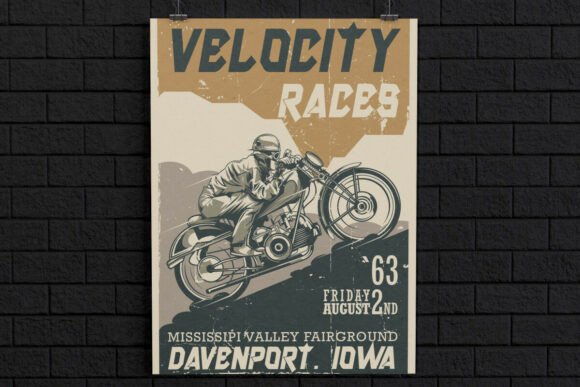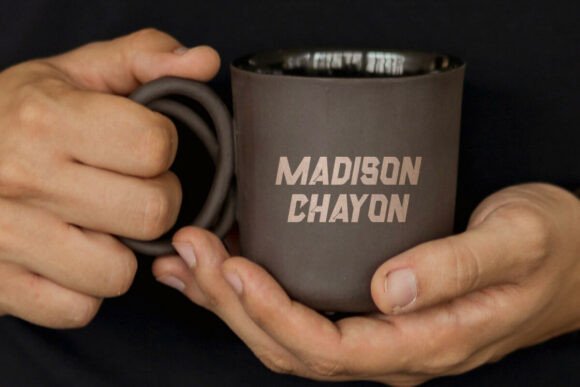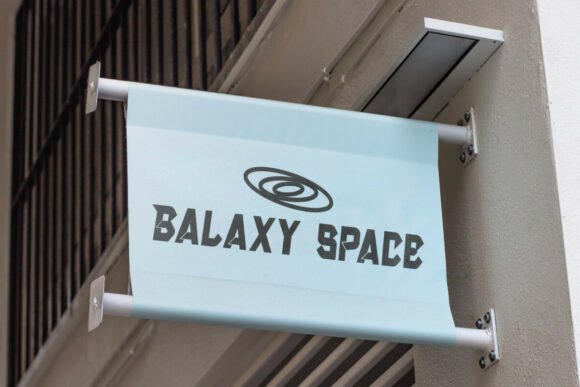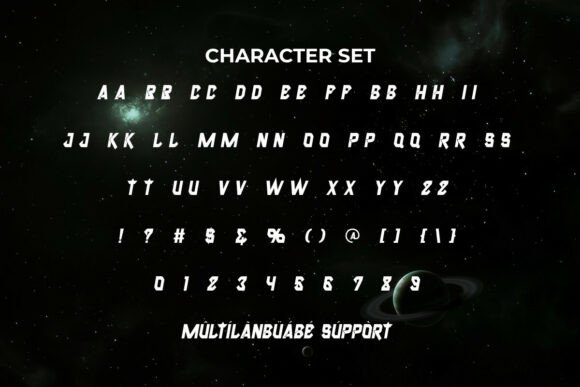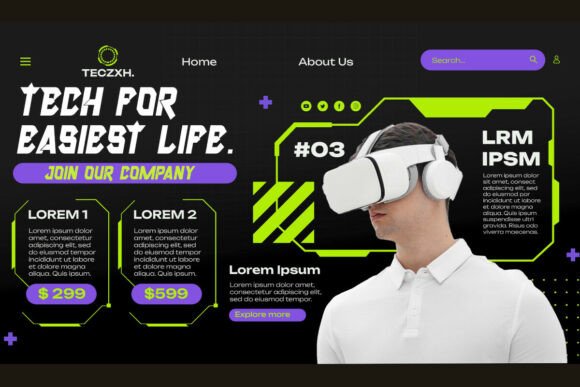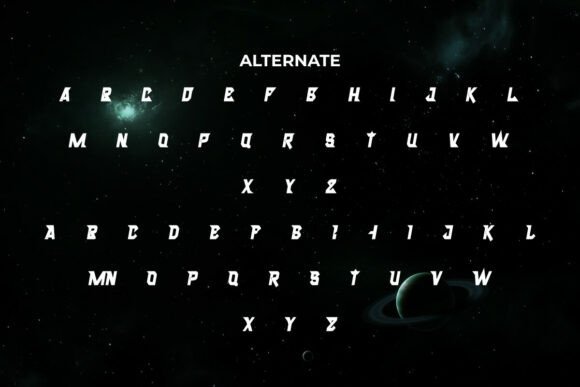
Introduction to Rocketspin Font
Have you ever been working on a creative project, staring at a blank canvas, and suddenly, a burst of energy hits you? That’s what it feels like when you discover the perfect design resource – and the Rocketspin Font is no exception. This bold, stylish, and playful typeface is the ultimate game-changer for designers looking to add a modern edge to their work.
As a designer, you know how crucial it is to have a versatile font that can elevate your designs from ordinary to extraordinary. The Rocketspin Font does just that, with its dynamic and cool appearance that screams ‘energy’ and ‘movement.’ Whether you’re working on a high-profile advertising campaign or a personal project, this font is sure to make a statement.
With its complete set of characters, numerals, and punctuation marks, including alternates, the Rocketspin Font is the perfect addition to any design library. And the best part? It’s available for free download, making it an accessible resource for designers of all levels.
Key Features of Rocketspin Font
- Comes in a single weight, making it ideal for titles, headings, and other prominent text elements.
- Rocketspin Font is designed to be highly legible, even at small font sizes, making it perfect for a wide range of creative projects.
- Rocketspin Font is a unique and creative design element that can add a touch of personality to any project, making it stand out from the crowd.
Honest Review: Rocketspin Font
As a designer, I’m always on the lookout for high-quality design resources to elevate my creative projects. Recently, I had the chance to try out the Rocketspin Font, and I must say, it’s been a game-changer.
- ✨ High-quality font with a unique, futuristic design aesthetic
- ✨ Perfect for futuristic, sci-fi, or tech-related projects
- ⚠️ Limited character set, which may require additional font purchases for more extensive use
Overall, I’m thoroughly impressed with the Rocketspin Font. Its unique design and high-quality construction make it an excellent addition to any design resource library. While it may have some limitations, the benefits far outweigh the drawbacks. I highly recommend giving it a try for your next creative project!
Rocketspin Font
To get the most out of the Rocketspin Font, use it on a transparent background to give your designs a modern and sleek look. You can also use it in combination with other design elements such as images and shapes to create a unique and eye-catching design.
The Rocketspin Font is commonly used in creative projects such as logos, business cards, brochures, and posters. It is also used in digital designs such as social media graphics, website headers, and email templates.